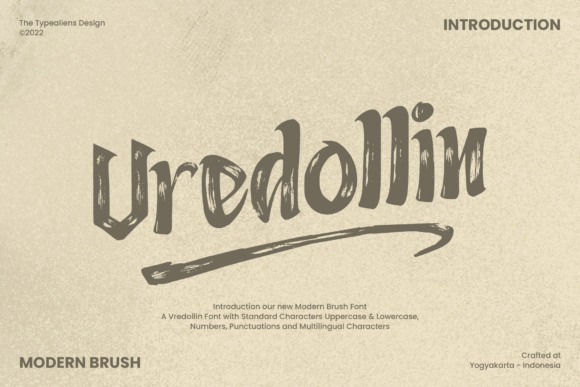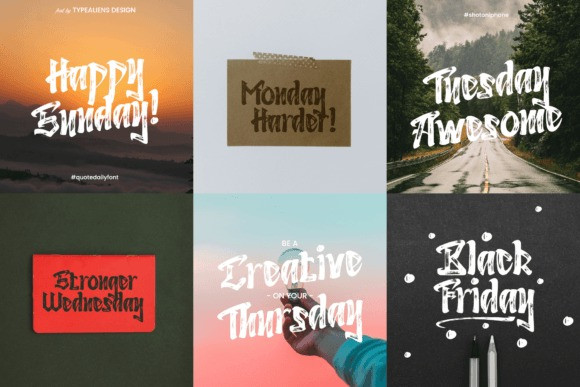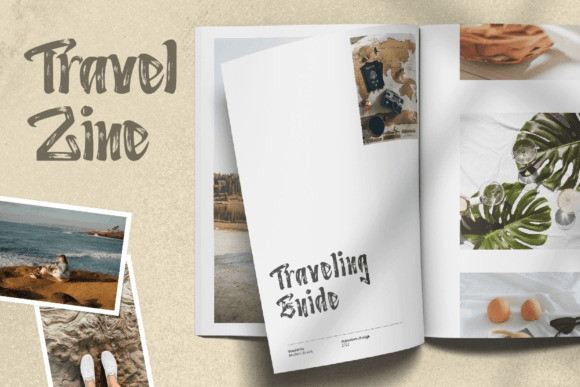
Vredollin Font
VREDOLLIN is a unique and modern brush font. This font is a casual style, suitable for modern designs, fashion brands, and social media. Fonts made from the calligraphy process, fonts without connecting / hooks.